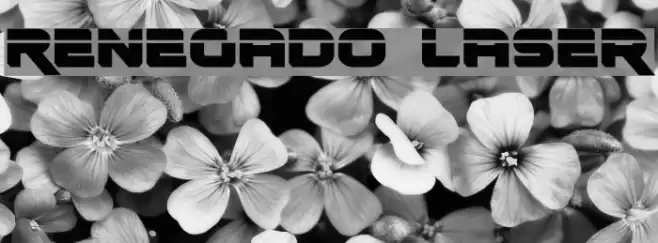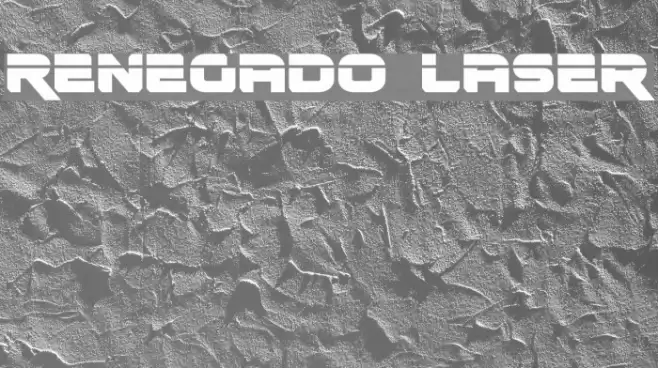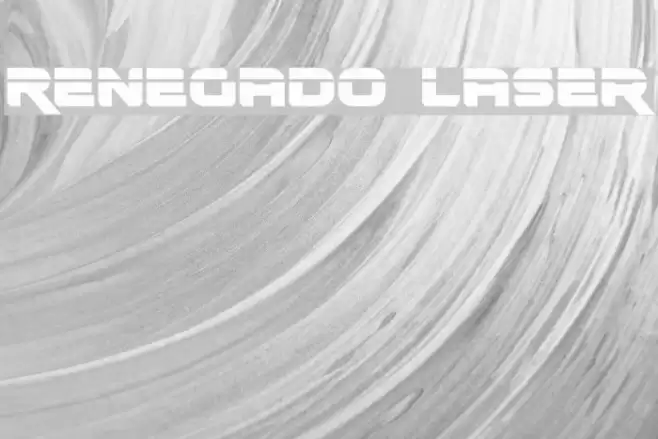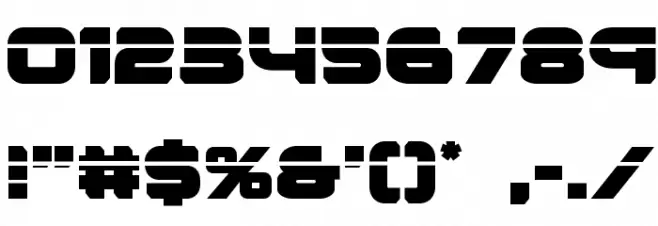
Renegado Laser Font
Renegado Laser Description
This font features a bold, futuristic design with a strong geometric influence. The characters are constructed with sharp angles and straight lines, giving it a mechanical and industrial feel. The uppercase letters are uniform in height, while the lowercase letters maintain a consistent style, enhancing readability. The numbers and special characters follow the same design principles, ensuring a cohesive look across all elements. The font's unique style makes it stand out, ideal for projects that require a modern and edgy aesthetic.
A bold, futuristic font with geometric and industrial design elements from Uncategorized fonts.
- Proposed Projects: Ideal for sci-fi themed projects, technology branding, video game titles, and modern posters.